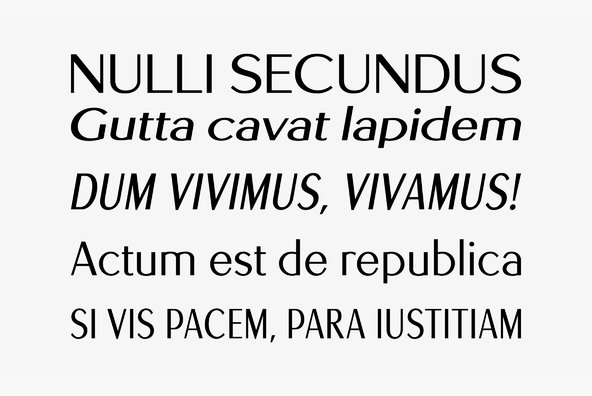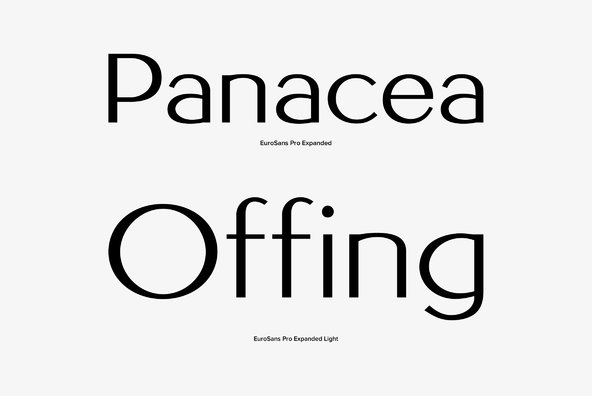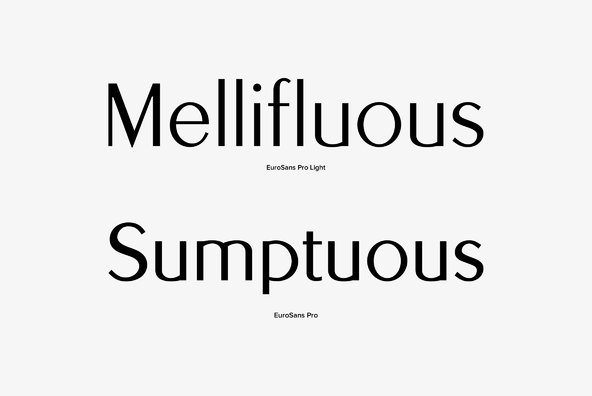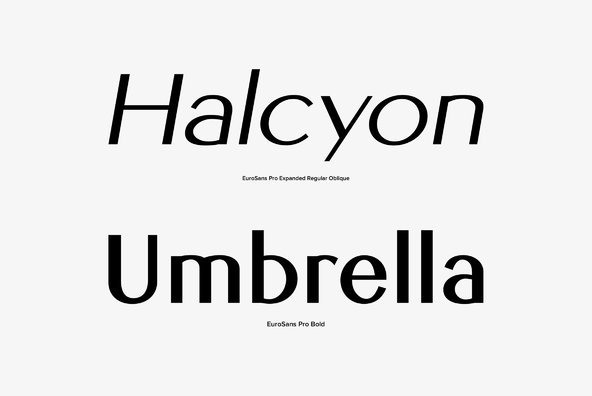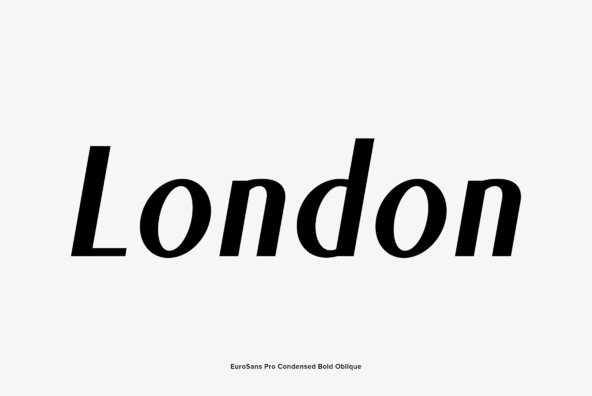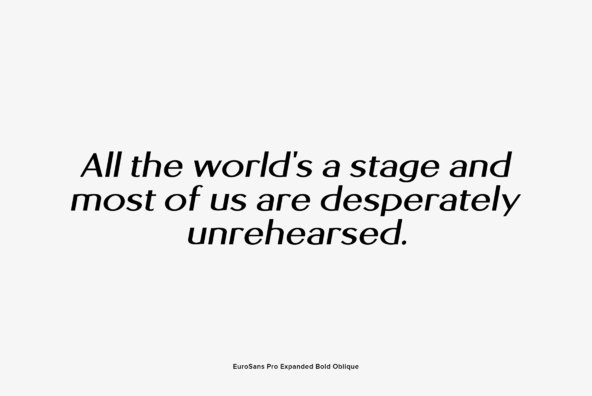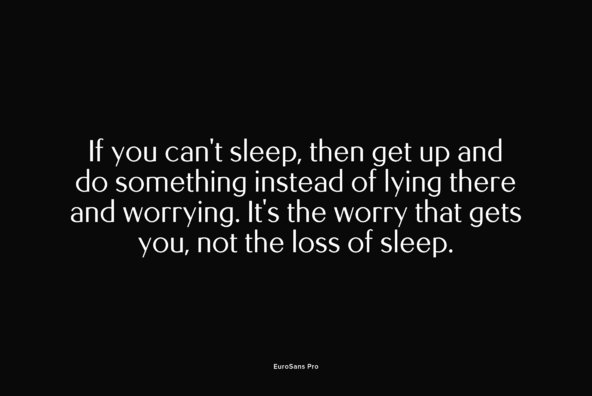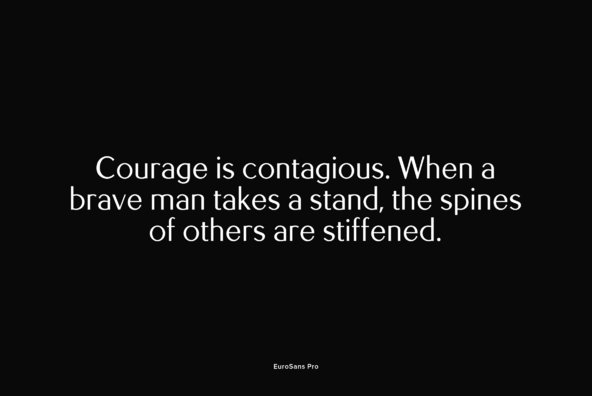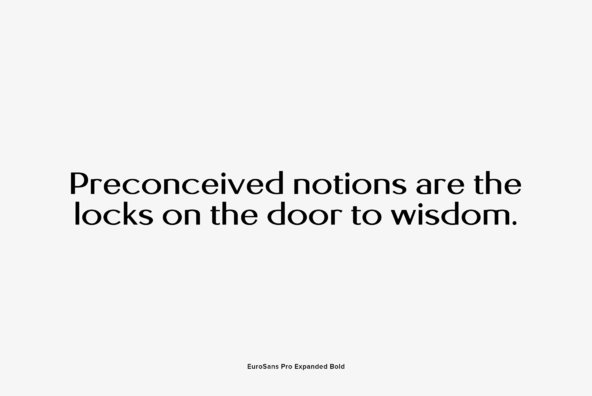
Euro Sans Pro
Foundry: profonts
Euro Sans Pro, created by German type designer Ralph M. Unger - is a classical and modern Roman Sans Serif at the same time. The family comprises of 12 styles, each with more than 500 glpyhs covering standard Latin, Central European, and Cyrillic. It is an all-purpose typeface, a strong and expressive roman sans serif with a French touch to it. Euro Sans Pro provides excellent readability in all sizes, for small copy as well as for very large letters on posters and signs. The character complement also includes small caps and old style figures, and the corresponding OTF features are built into the fonts as well.